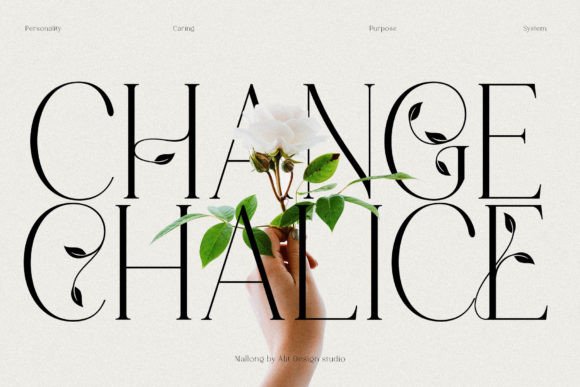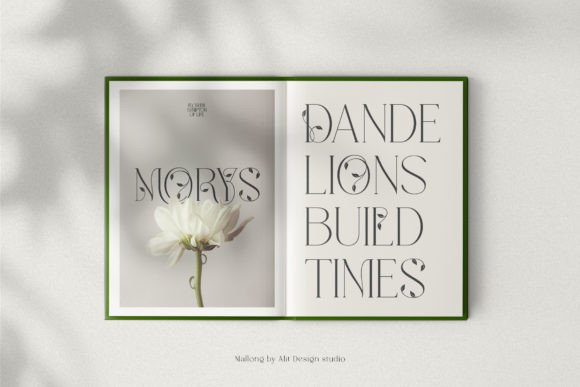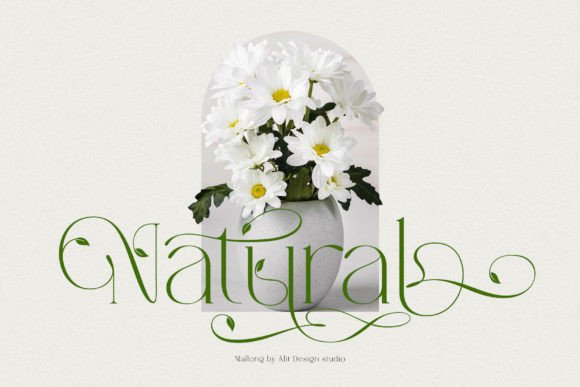
Introduction to Mallong Font
Mallong font is a serif typeface that embodies elegance and naturalness.
Its design features classic serif details, combined with graceful curves and a unique leaf-outline swash, that adds a touch of beauty to each character This font is perfect for creating sophisticated designs with a touch of organic charm.